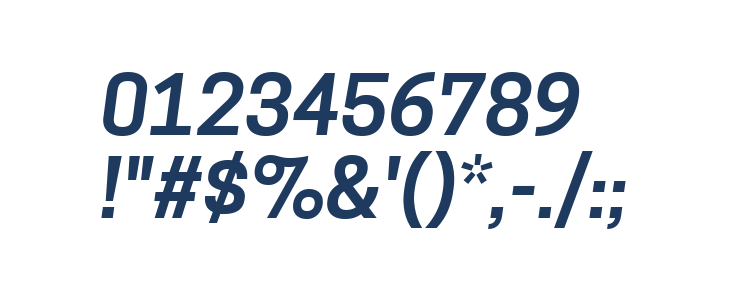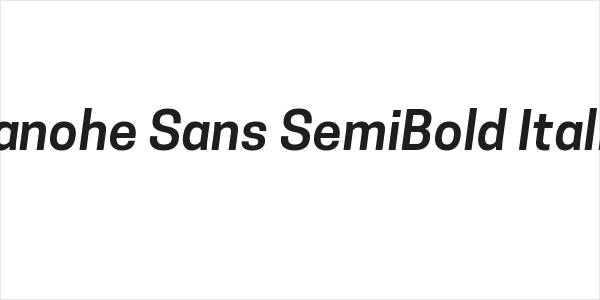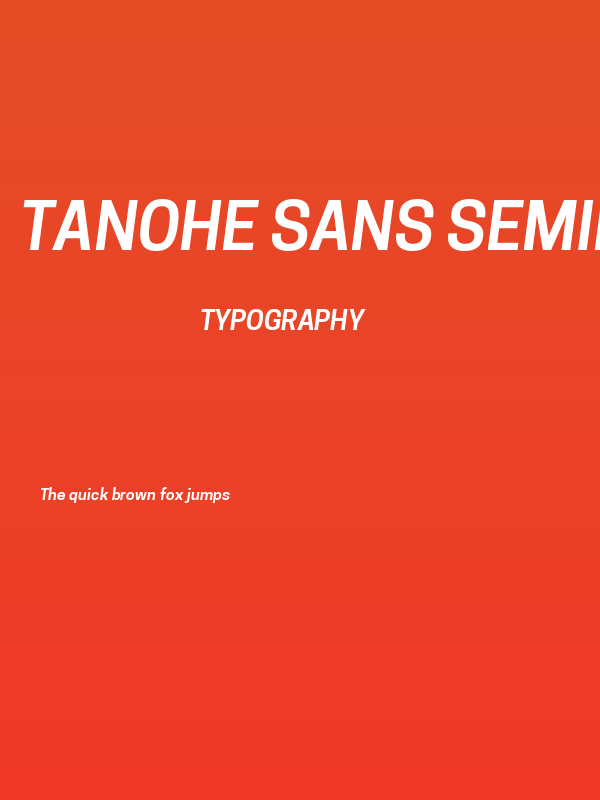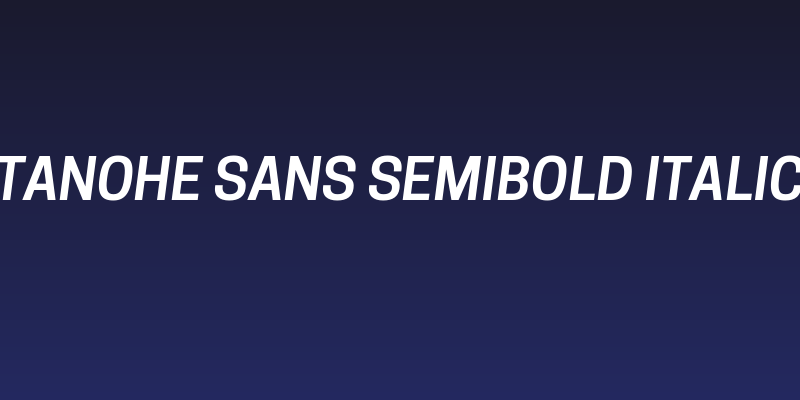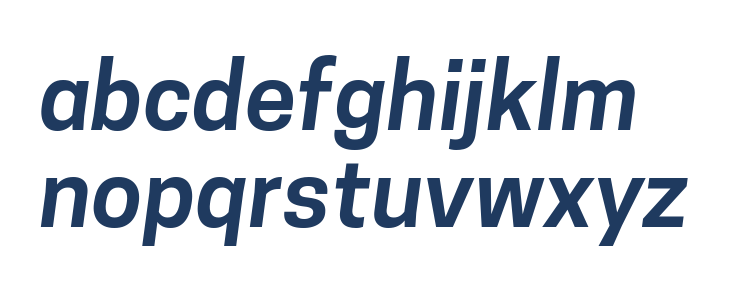
Tanohe Sans SemiBold Italic Font
Tanohe Sans SemiBold Italic Description
This font features a clean and modern sans-serif design with a semi-bold weight and italic style. The characters are slightly slanted, giving a dynamic and forward-moving appearance. The strokes are consistent in thickness, providing a uniform look across all characters. The uppercase and lowercase letters are well-proportioned, with a slight emphasis on verticality. The numerals are clear and easy to read, maintaining the same stylistic features as the alphabet. Special characters are distinct and match the overall aesthetic, making this font versatile for various applications.
| Use Case | Headlines, Logos, Digital content |
| Proposed Projects | Ideal for branding, advertising, and digital content where a modern and dynamic look is desired. |